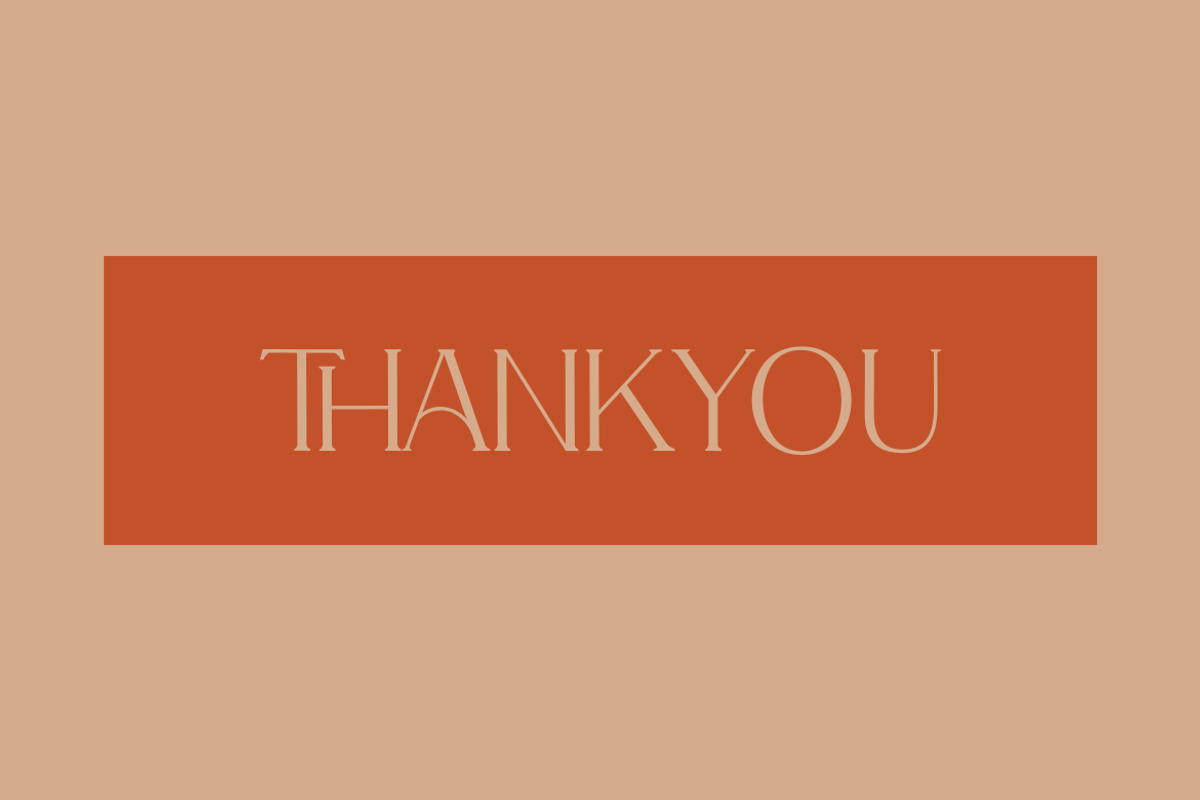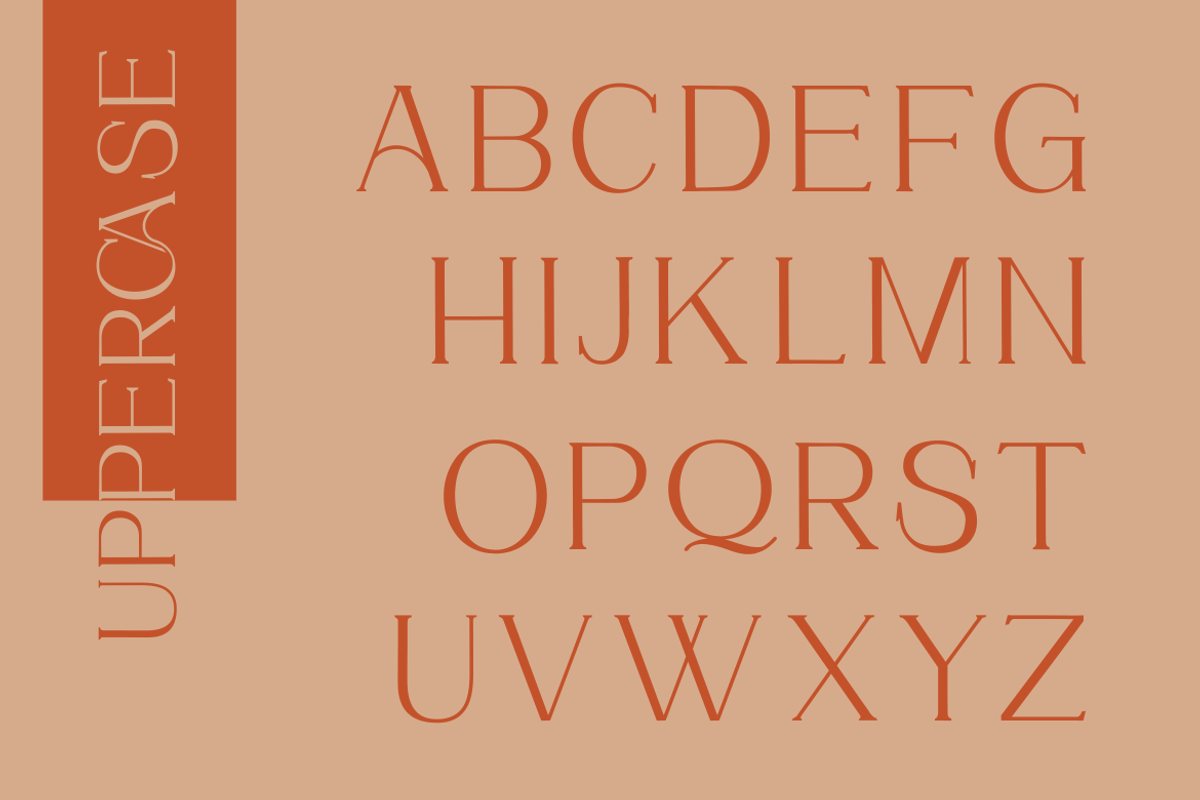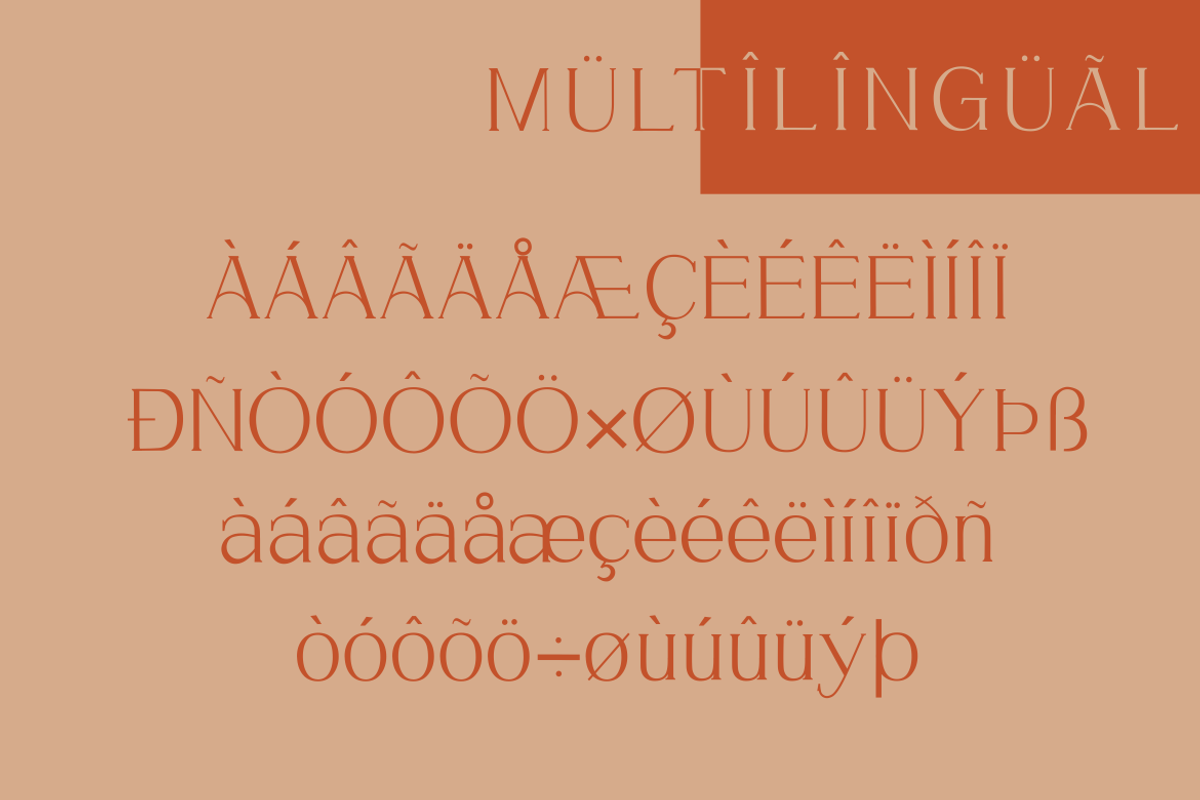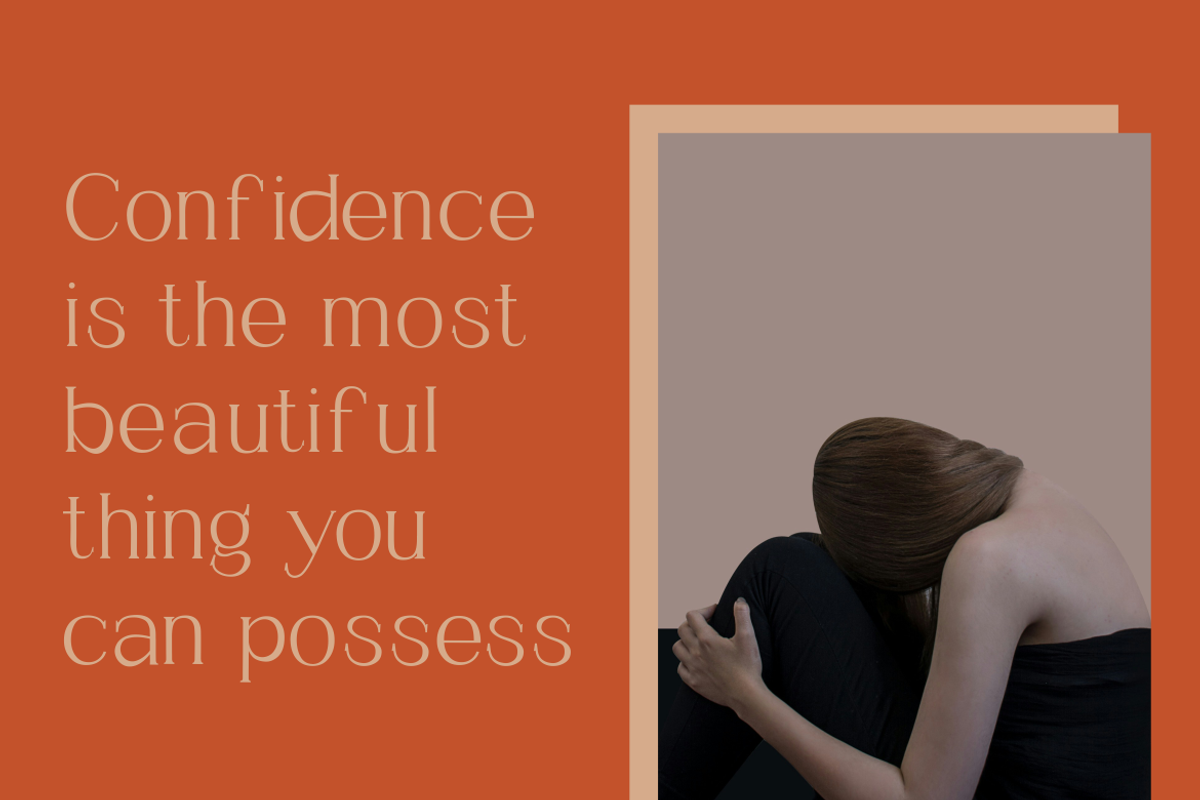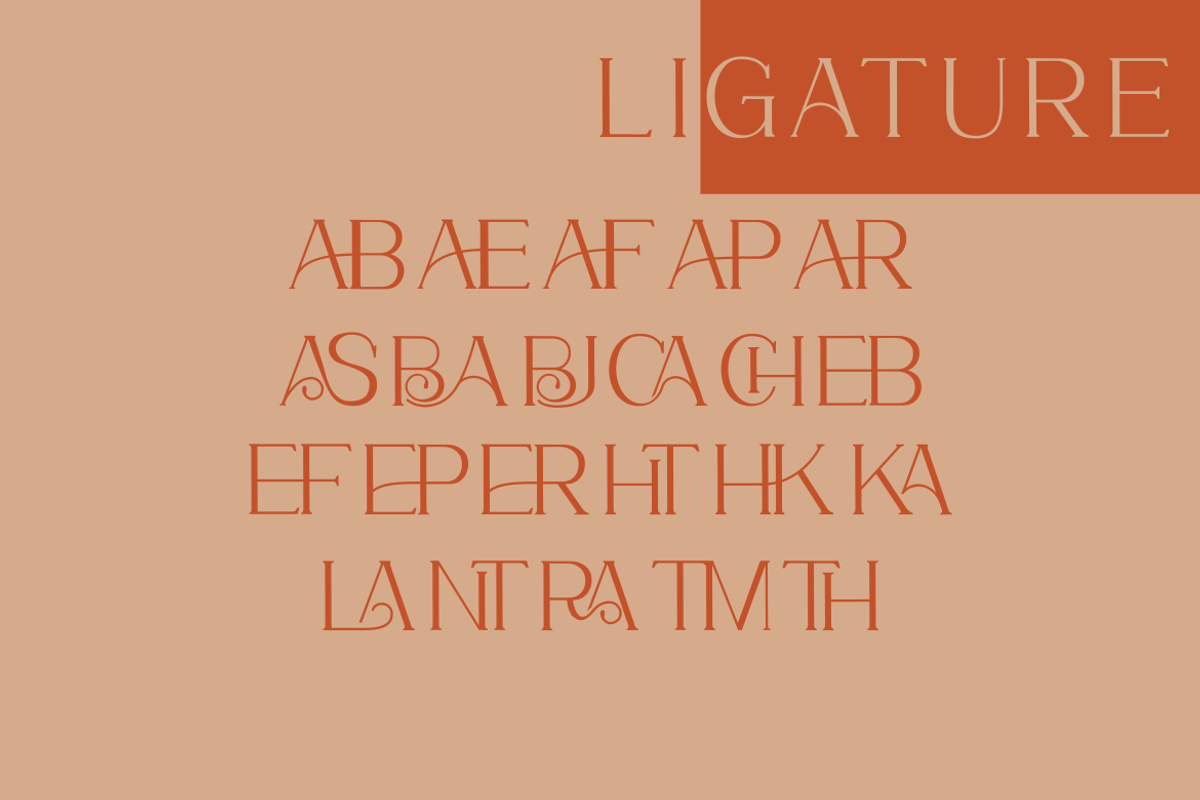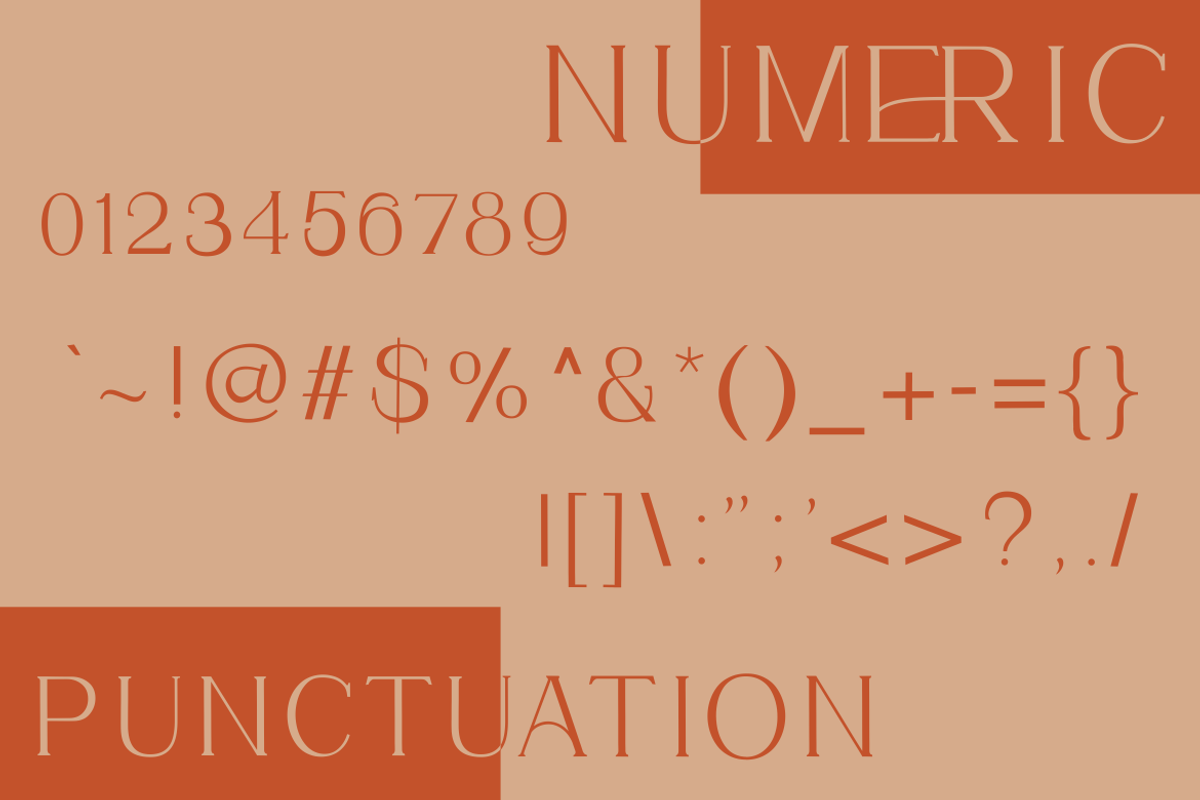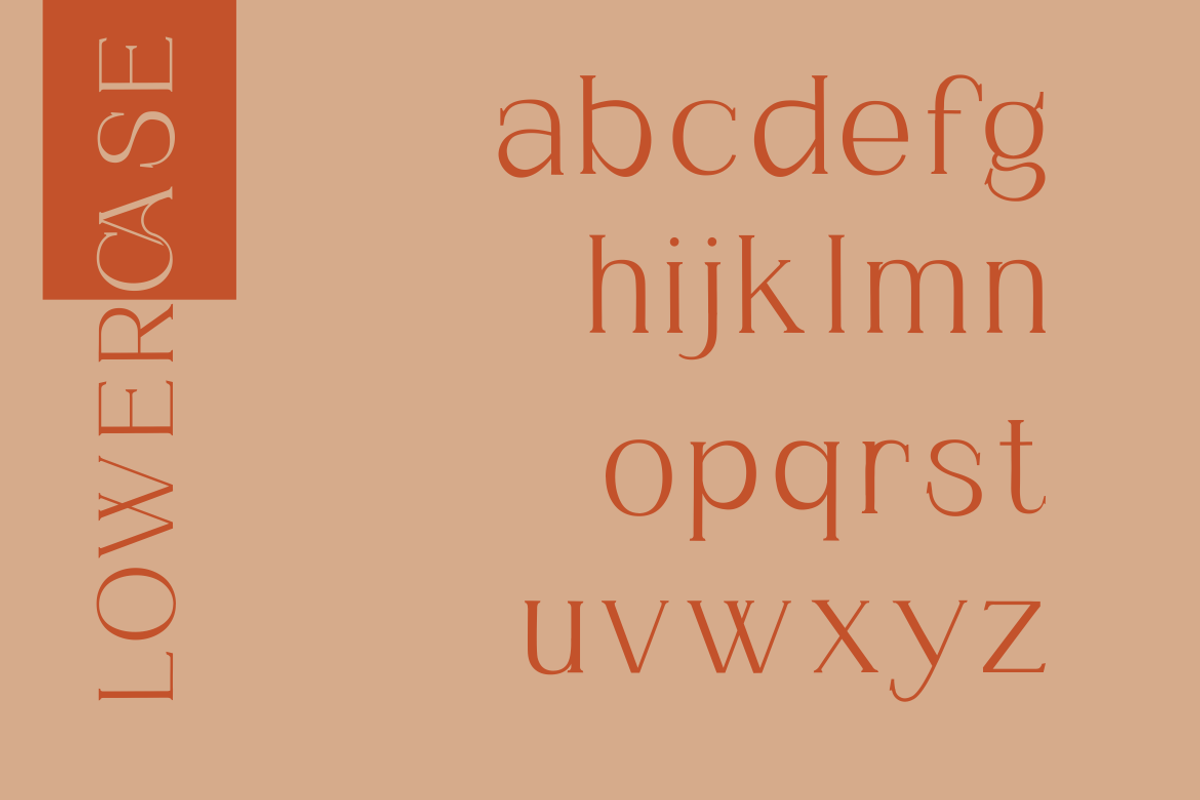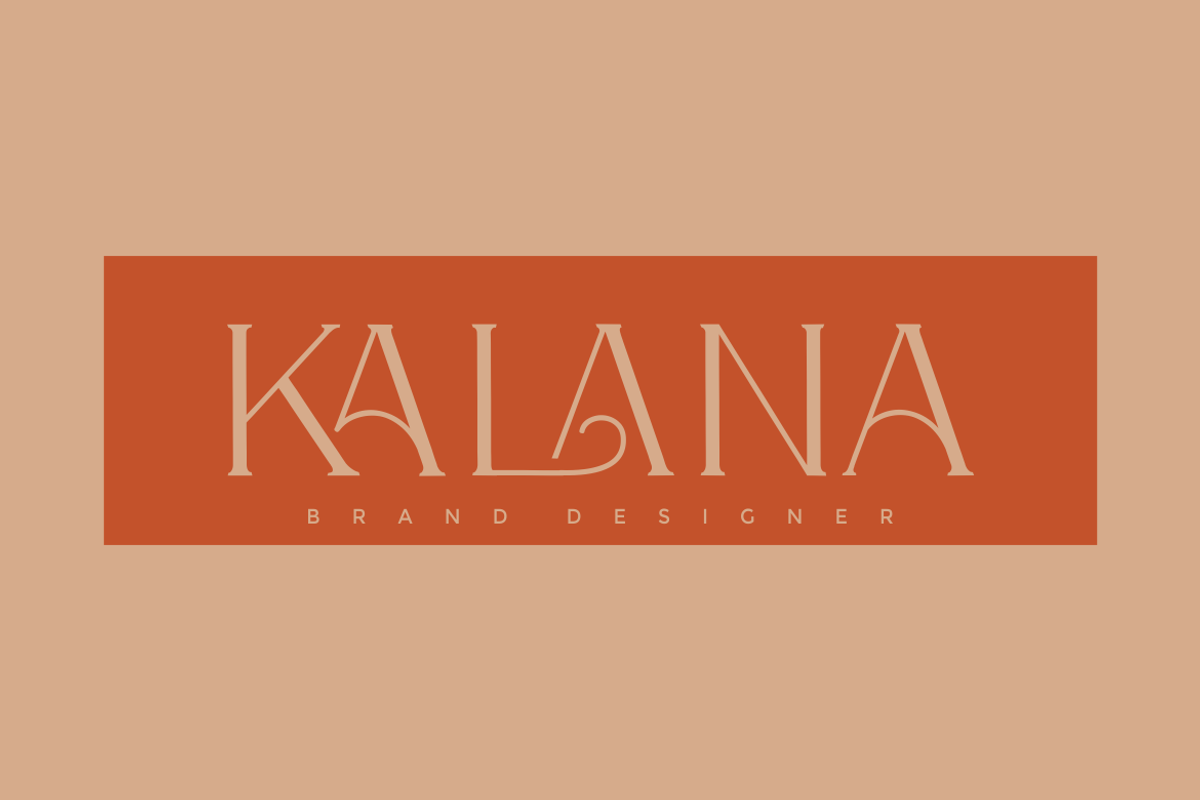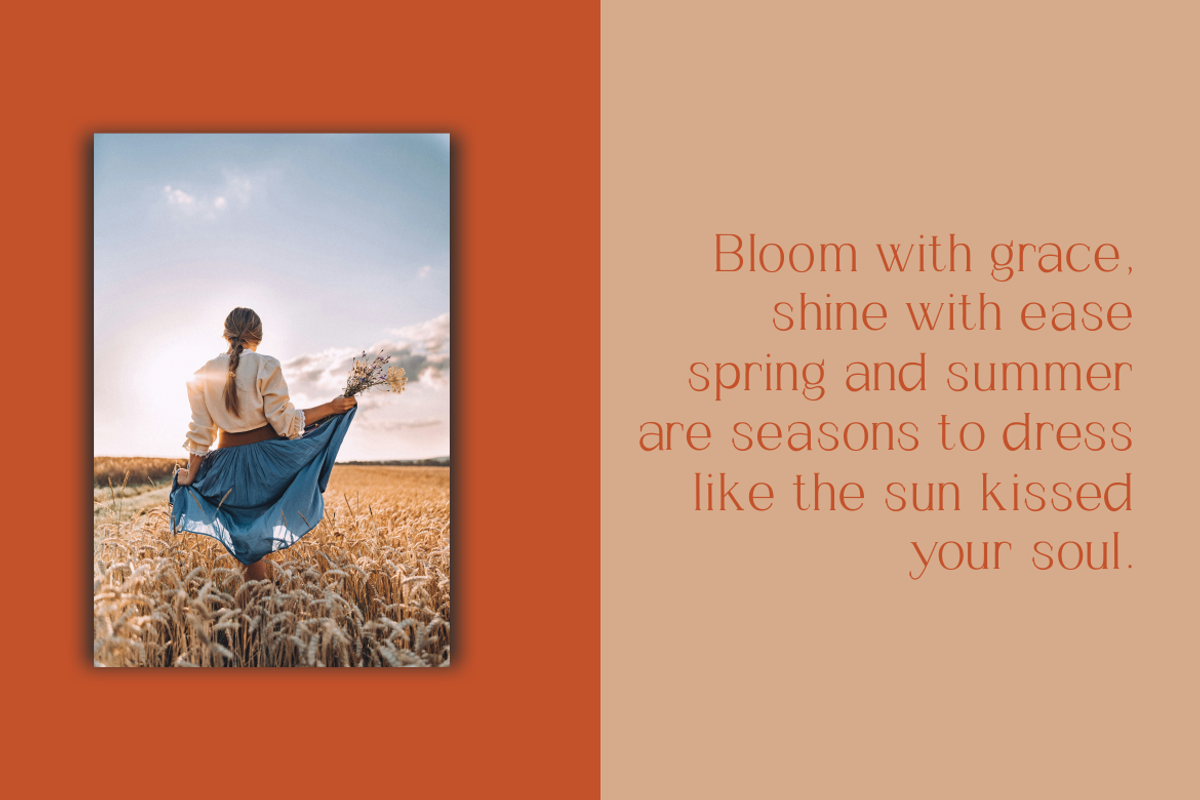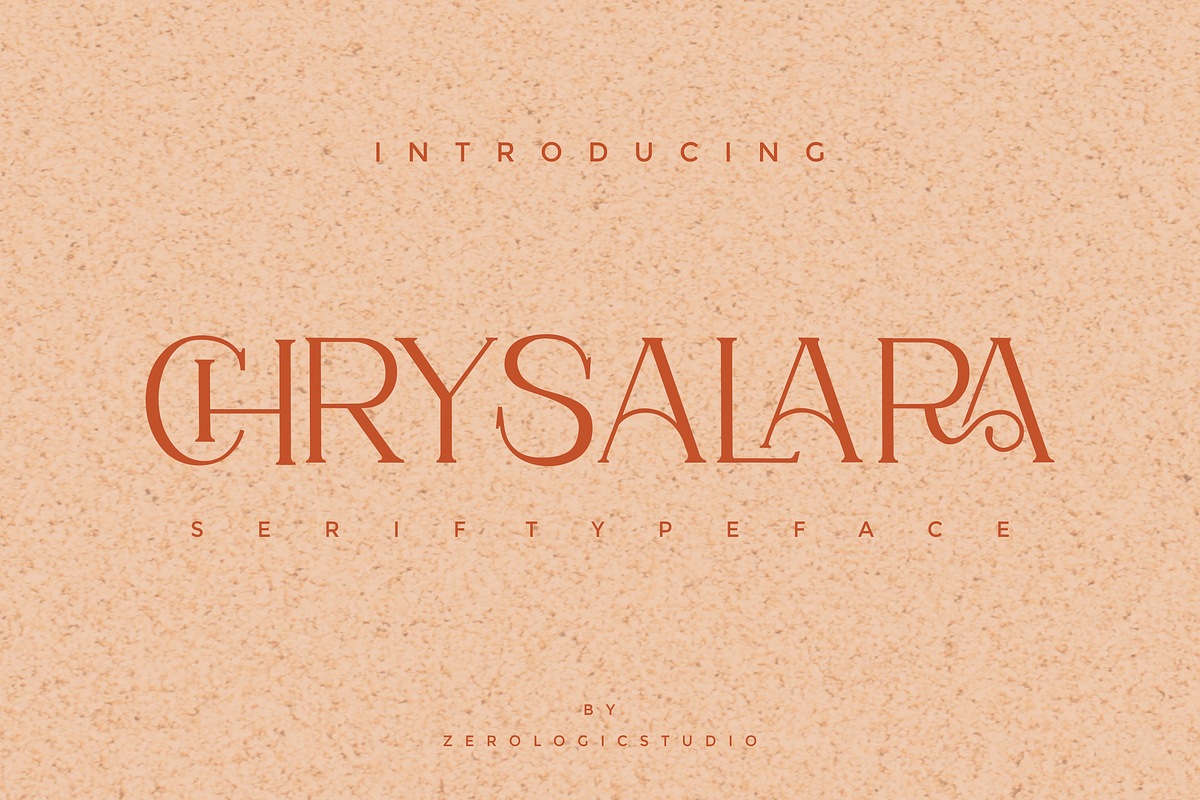
Chrysalara Serif Typeface
Chrysalara is a refined serif typeface that embodies elegance and transformation. With its delicate yet confident strokes, this font bridges classic sophistication with modern versatility. Its graceful serifs and balanced proportions make it perfect for high-end branding, editorial design, and timeless typography. Chrysalara speaks with poise, making every word feel intentional and stylish
- UPPERCASE & LOWERCASE